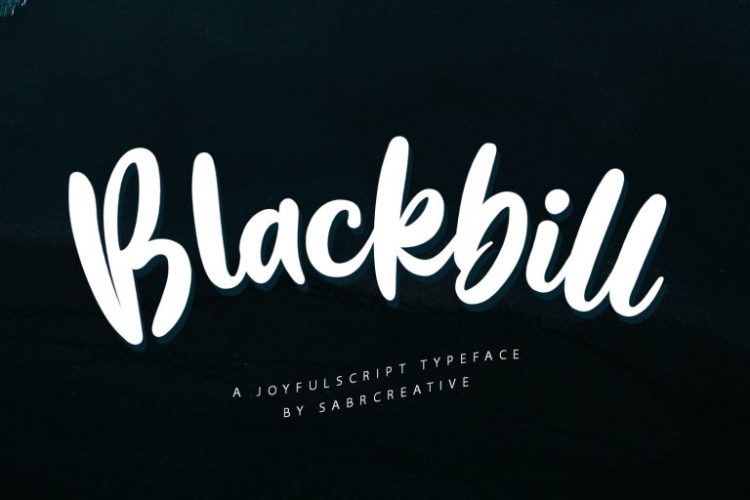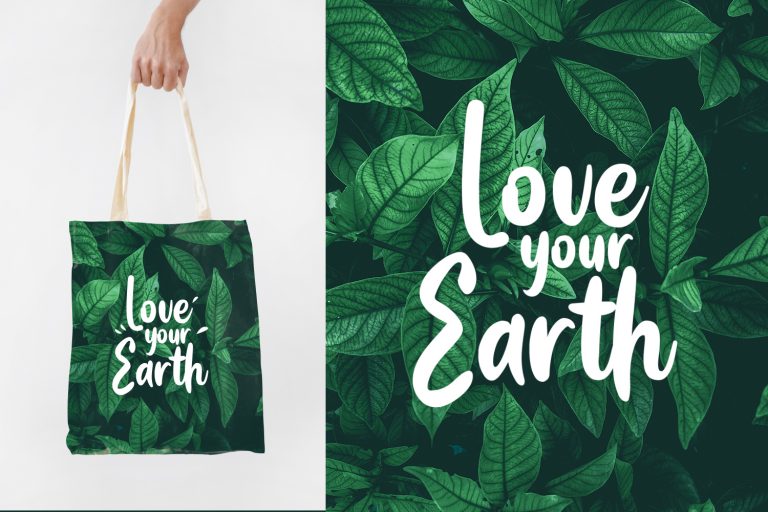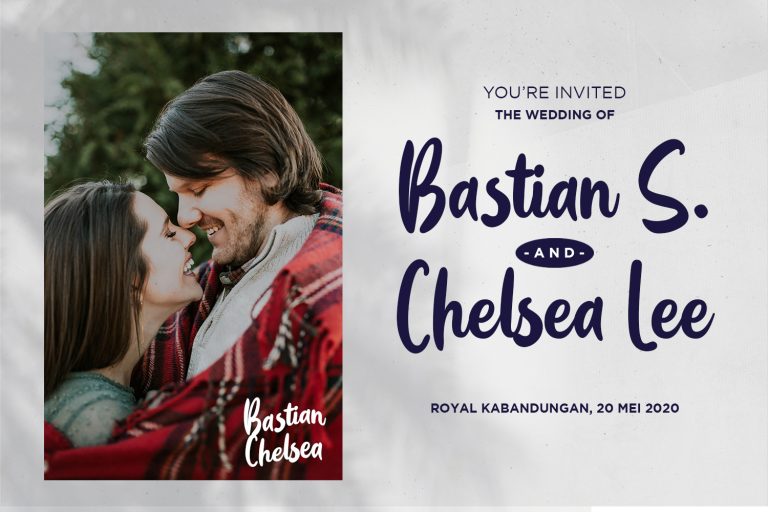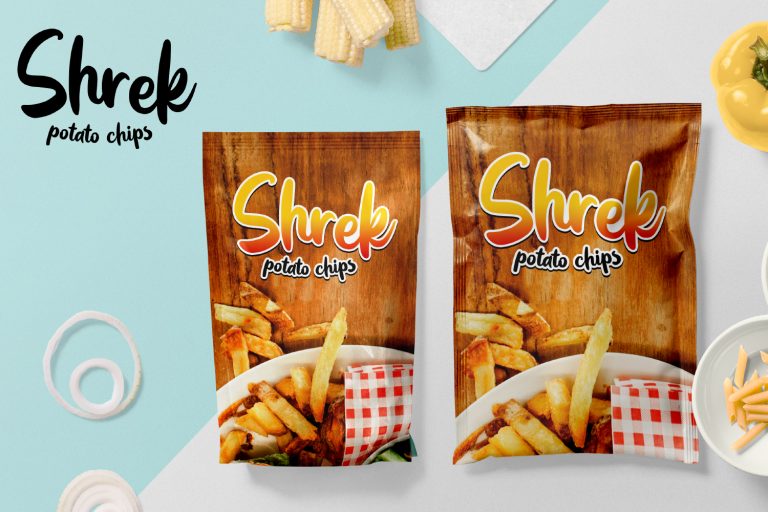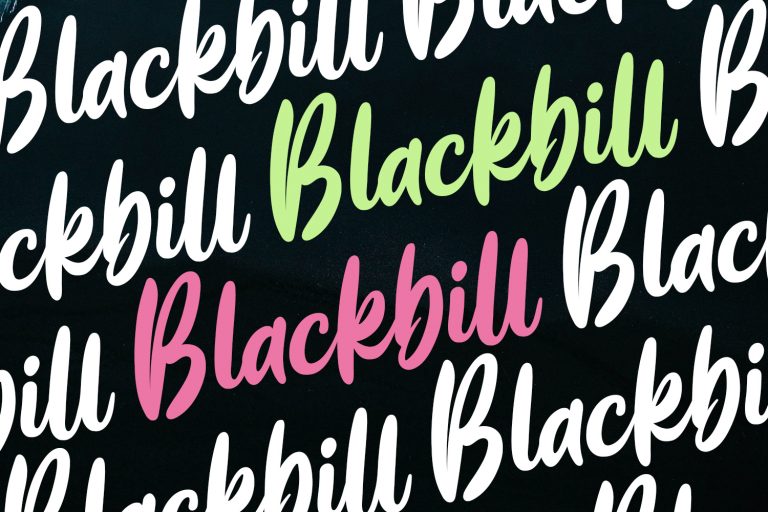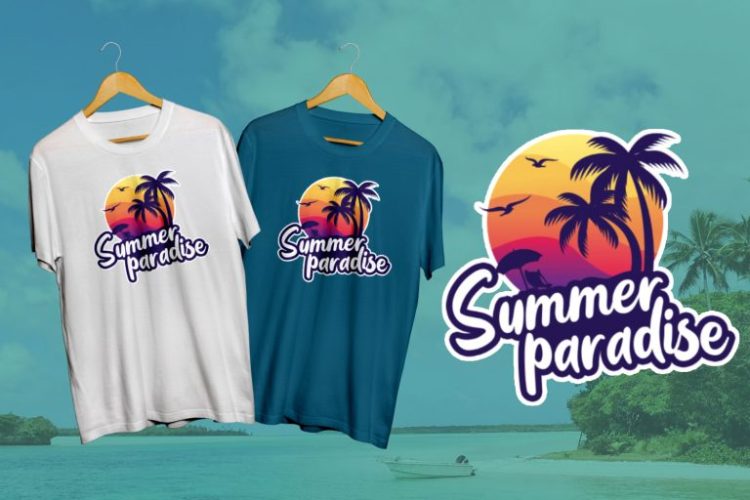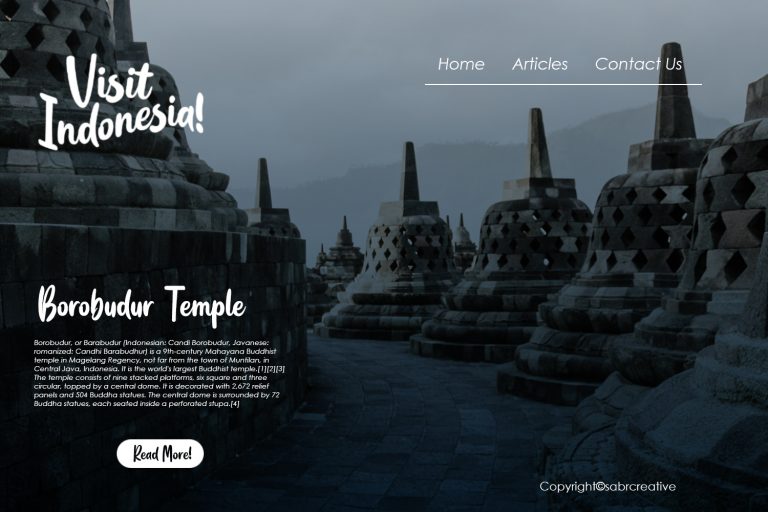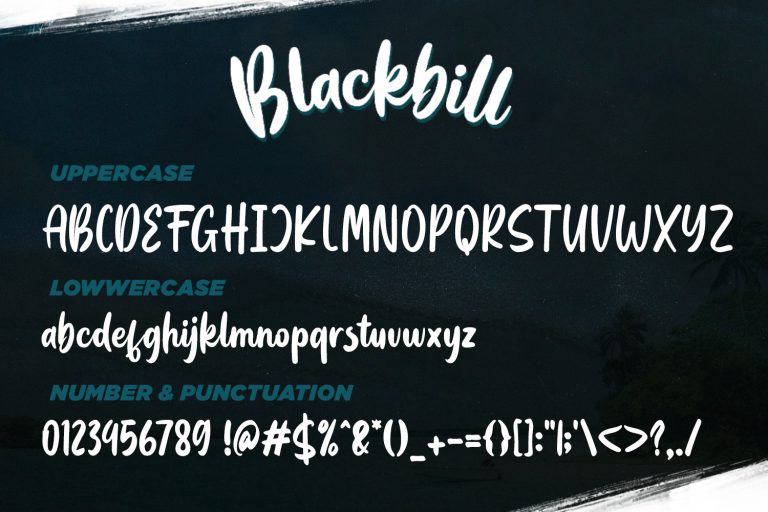
Introducing Blackbill Font, this fonts with script styles with natural and strong characters that are created using calligraphy brushes and then trace them neatly until they get consistent results.
Blackbill font can be used for various types of needs of your project to suit your needs.
With multilingual support, this font is also suitable to be combined with various design styles from various countries.
Blackbill Font Features :
• Uppercase
• Lowercase
• Number
• Punctuation
• Multilingual